Fancy Letter A Font
Every fancy font style rendered for just the letter A, so you can compare them side by side before picking one for an initial, a logo, or a single-character tag.
The Letter A in Every Style
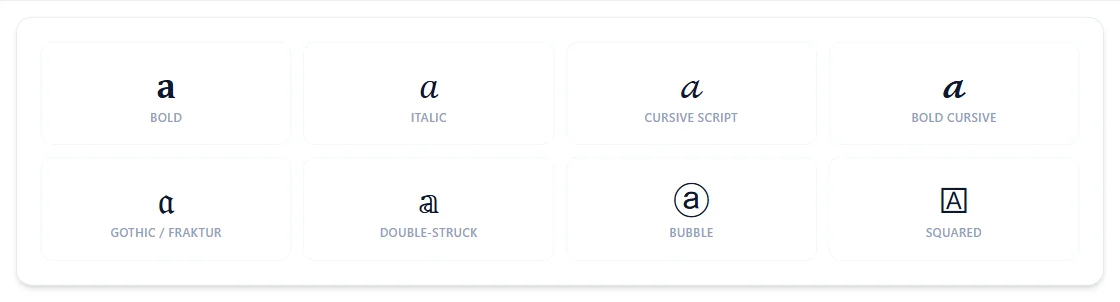
A is one of the cleanest letters to style: it survives every alphabet style here without borrowing a stand-in symbol from elsewhere in Unicode, unlike several other letters on this list. Flip it upside down, though, and it turns into ∀ — the same symbol logicians use for "for all" in formal proofs, not a coincidence, just how Unicode's rotated-letter block happened to reuse an existing character.
Why does upside-down A look like a triangle with a line through it?
That's ∀, the mathematical "for all" symbol — Unicode's upside-down A reuses it because a genuinely rotated A shape wasn't a separate character in the block being used.